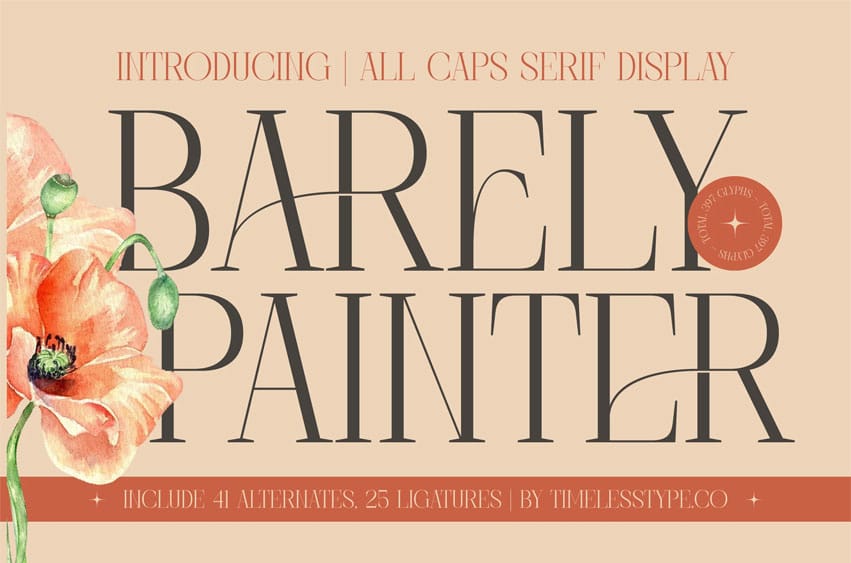
Barely Painter Font is an elegant all-caps serif display font featuring thin strokes, refined details, and modern contrast. Designed with 25 ligatures and 41 alternates, it brings a balance of sophistication and artistic style to any project.
Ideal for branding, packaging, magazine layouts, or invitation design, Barely Painter adds a graceful and contemporary touch that enhances visual harmony and elegance.